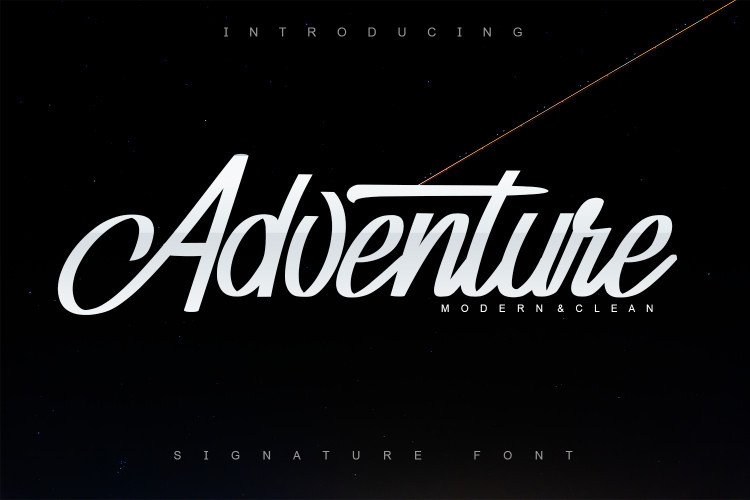
Adventure Script Font
This is a bold script font, it’s a modern script font. Great choice for your special moment or special project, pair perfectly with another font style. Introducing Adventure Font!  It is design and shared by Halymunt Studio. Adventure A cool, classy, modern, clean, is guaranteed to add an eye-catching appeal to your logo designs, brand imagery, handwritten quotes, product packaging, merchandise & social media posts and any more.